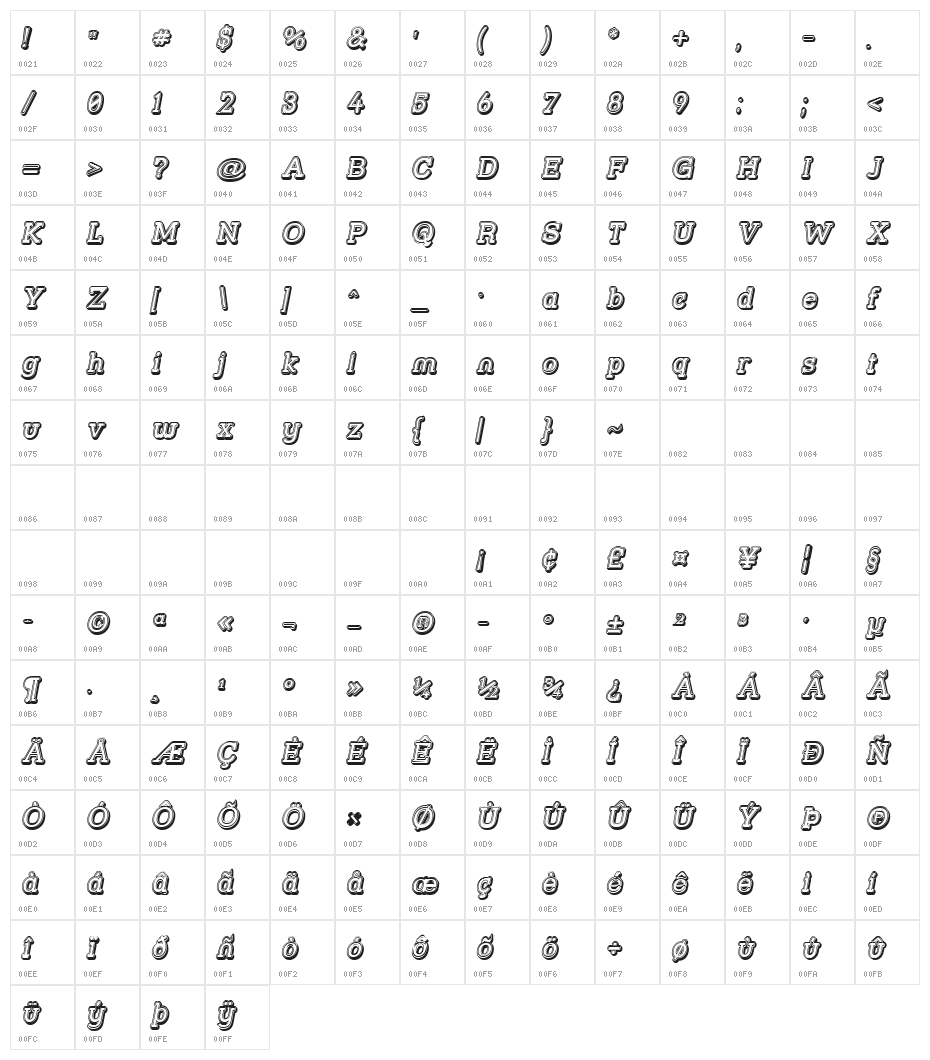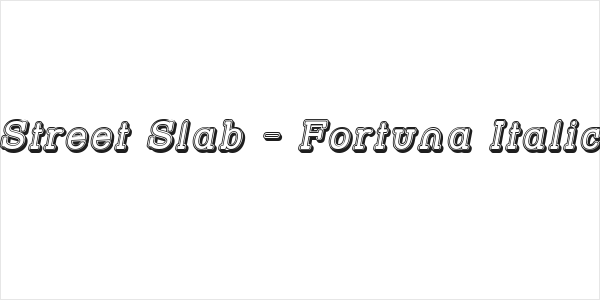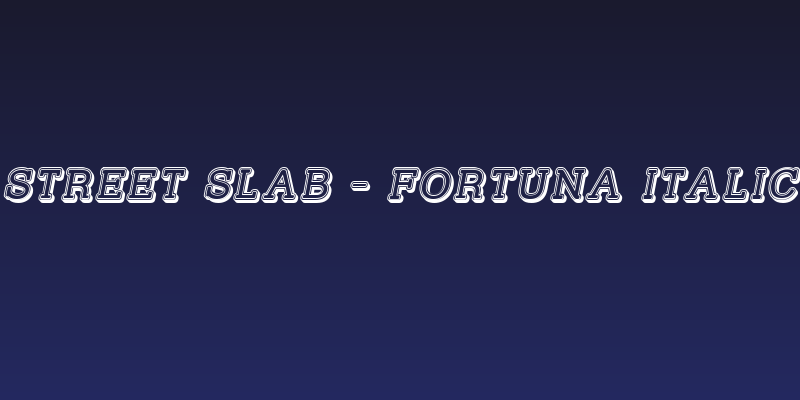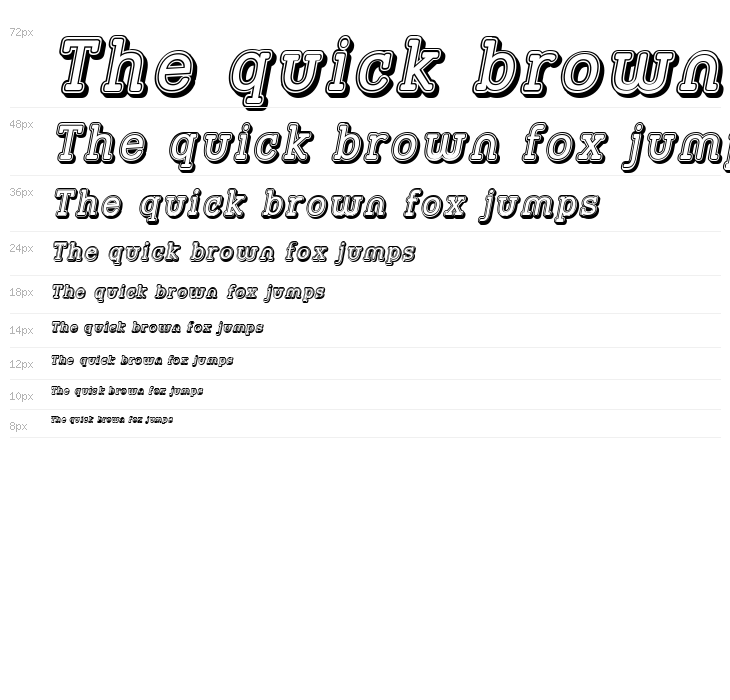
Street Slab - Fortuna Italic Font
Street Slab - Fortuna Italic Description
This font features a bold, slab serif style with a distinct three-dimensional effect created by its shadowed outline. The characters are italicized, adding a dynamic and forward-leaning appearance. Each letter is well-defined with a strong presence, making it suitable for attention-grabbing designs. The uppercase and lowercase letters maintain consistency in style, with rounded edges and a playful yet robust aesthetic. The numerals and special characters follow the same design principles, ensuring uniformity across all glyphs.
| Proposed Projects | Ideal for poster designs, branding projects, and headlines that require a bold and dynamic look. |